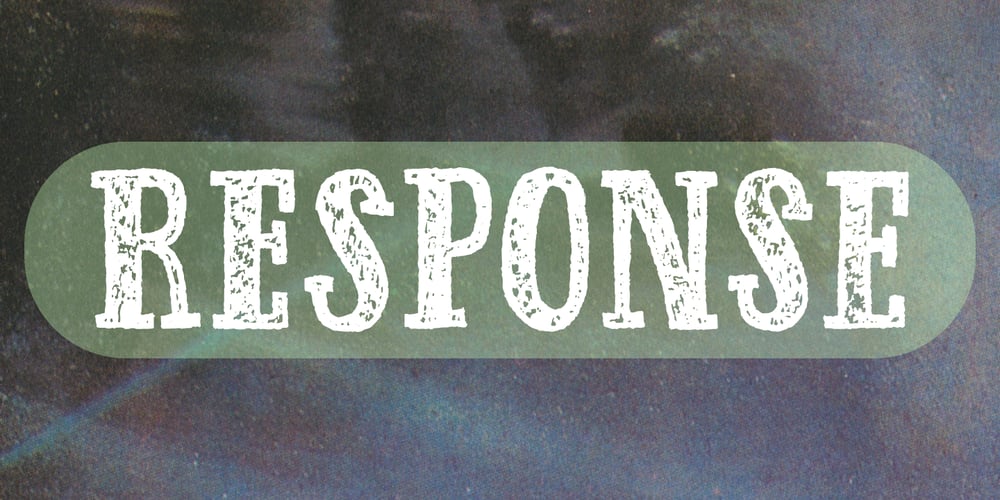
Response Font Family was designed by Jakob Fischer and published by PizzaDude.dk. Response contains 1 styles and family package options. Response is 100% handmade with a worn look to it. Comes with 5 different versions of each letter, and by using the contextual alternates they automatically cycles as you type! Response is good if you need a response regarding your next project – that being an invitation, packaging or something that needs a worn handmade look! Besides that, Response is full of international characters!